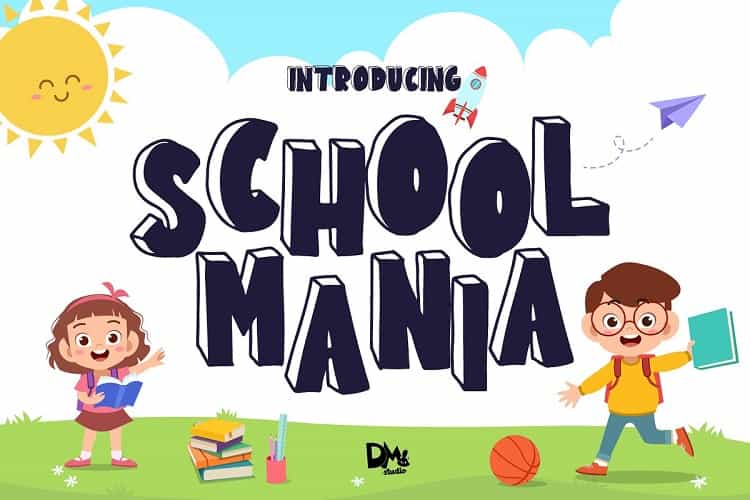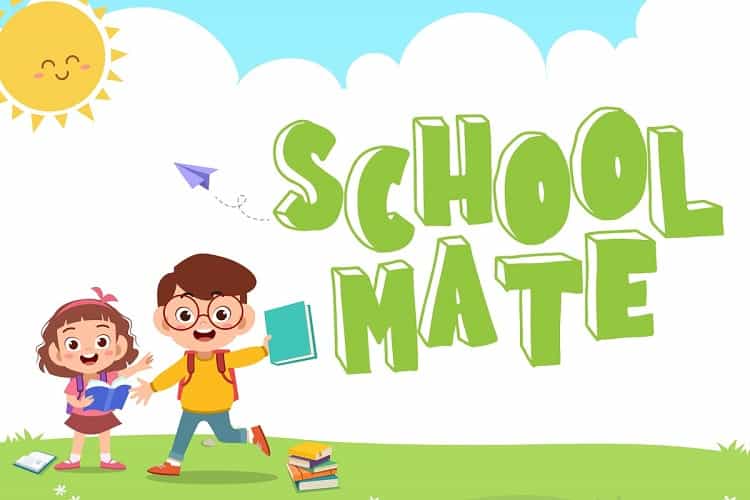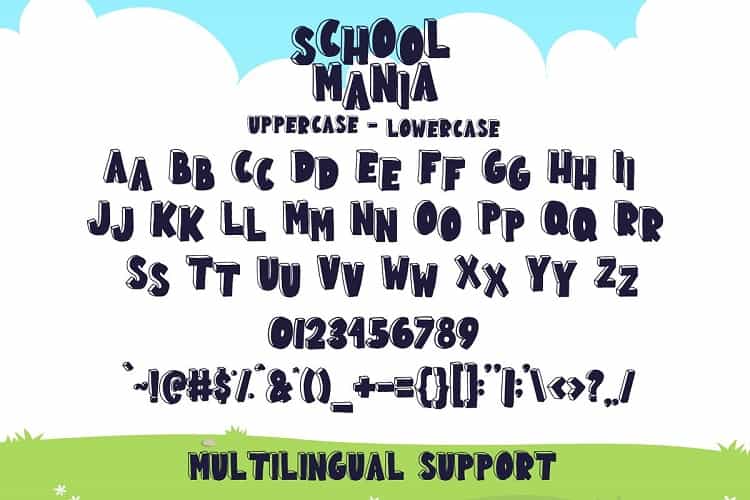
Enjoy the School Mania Cartoon Display font, and have fun playing with different styles of this font! It is a childlike font written by hand and drawn at school by kids – a playful font that is. You can print the uppercase and lowercase to create a zigzag pattern or you can arrange them one on top of the other for a more interesting design!